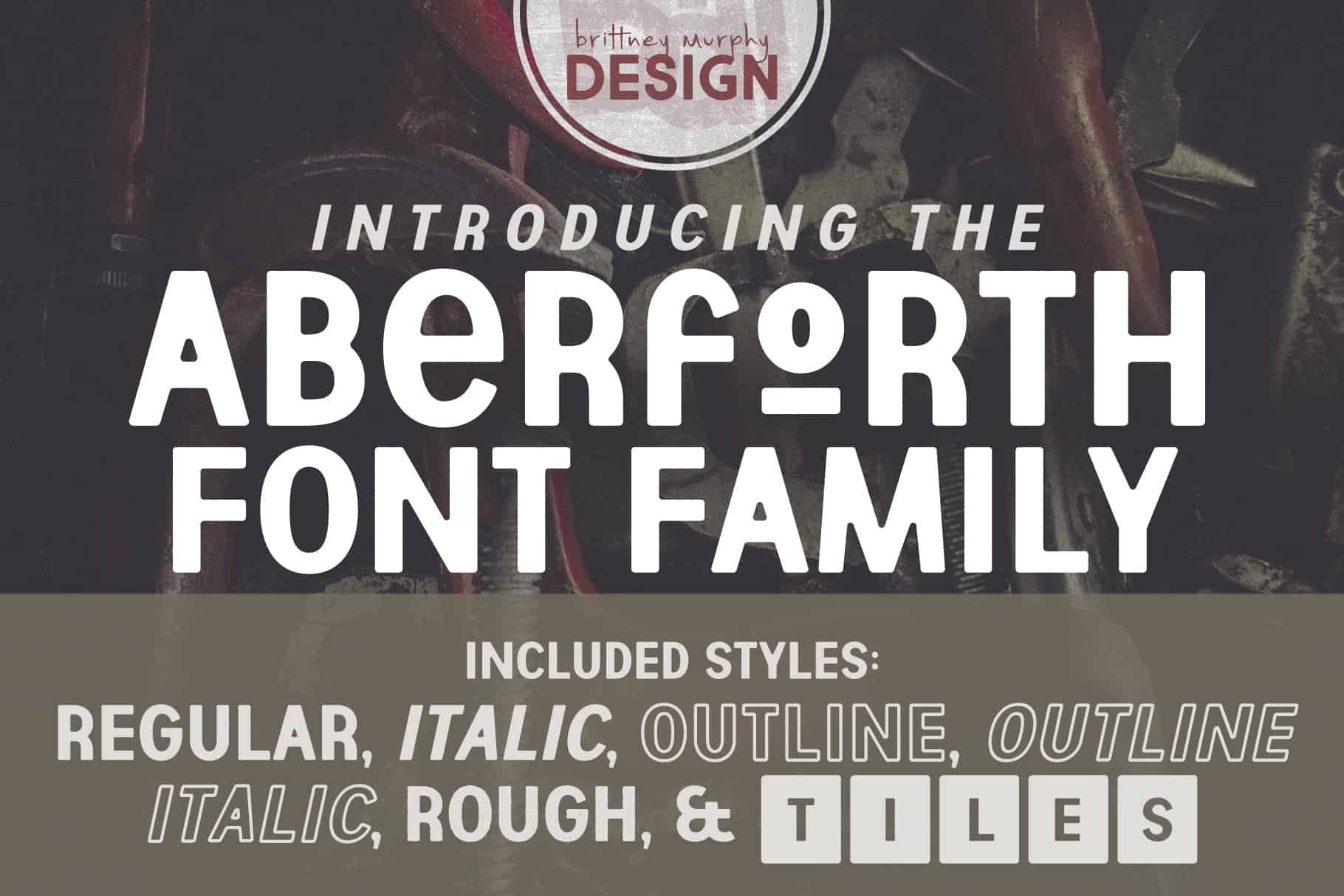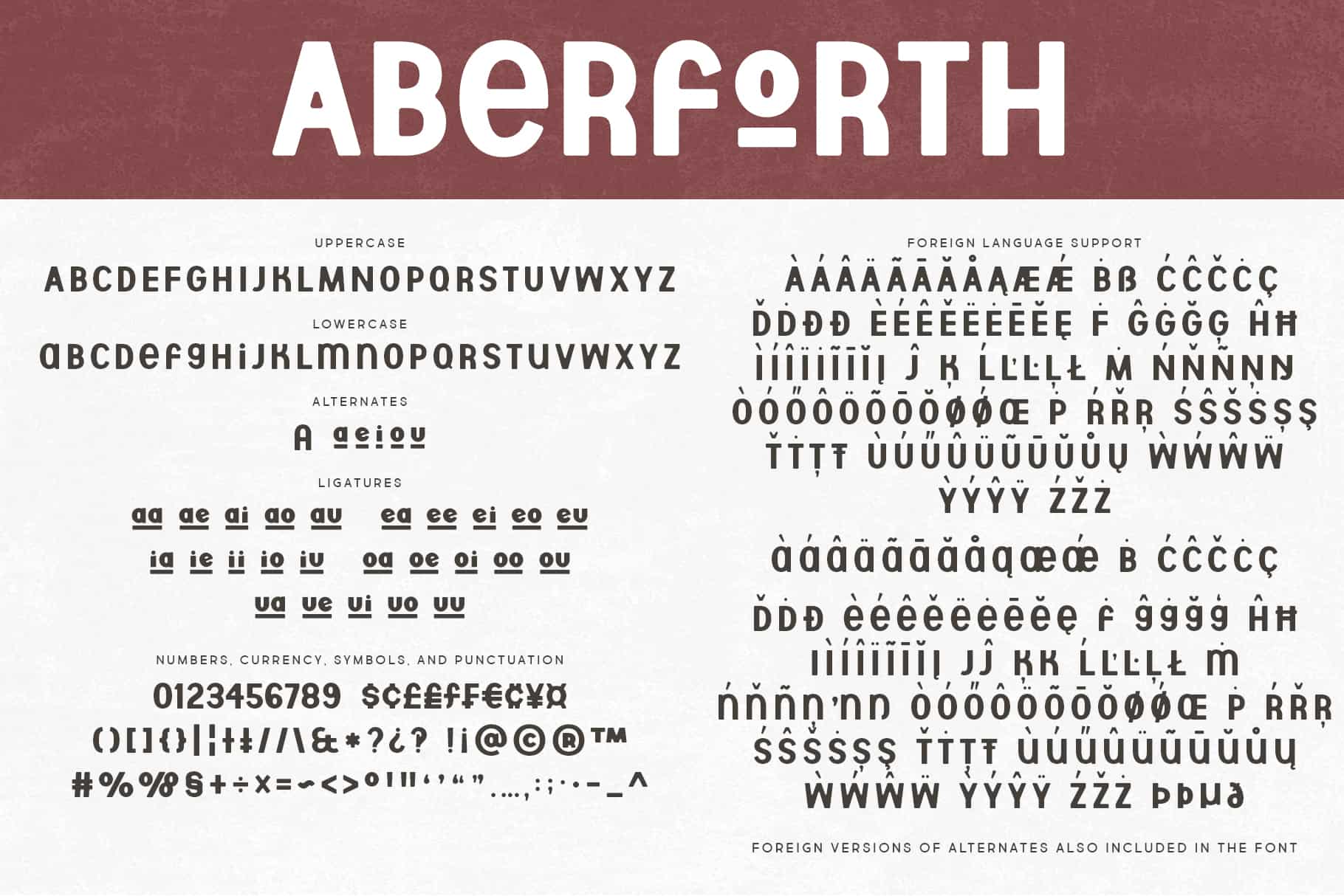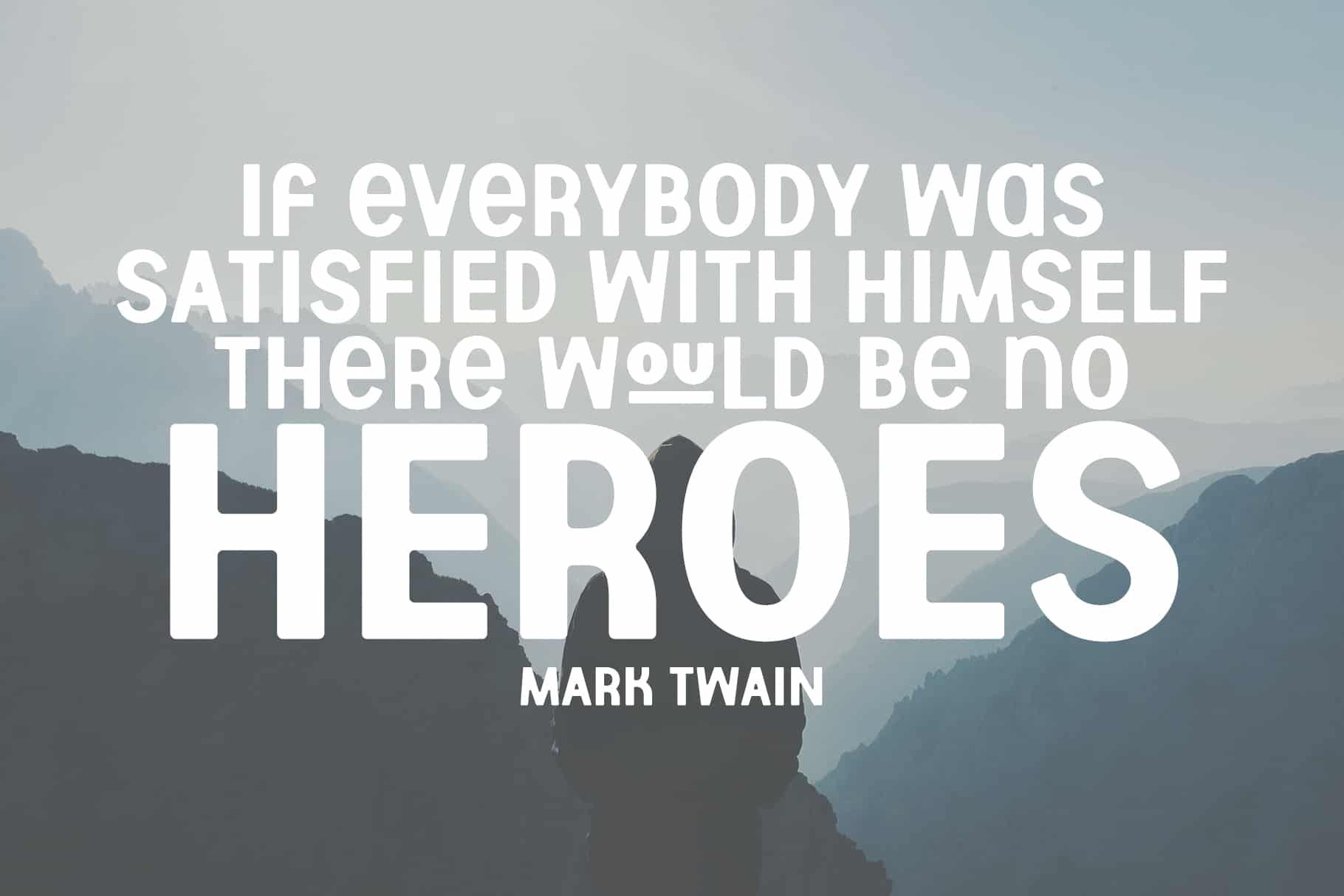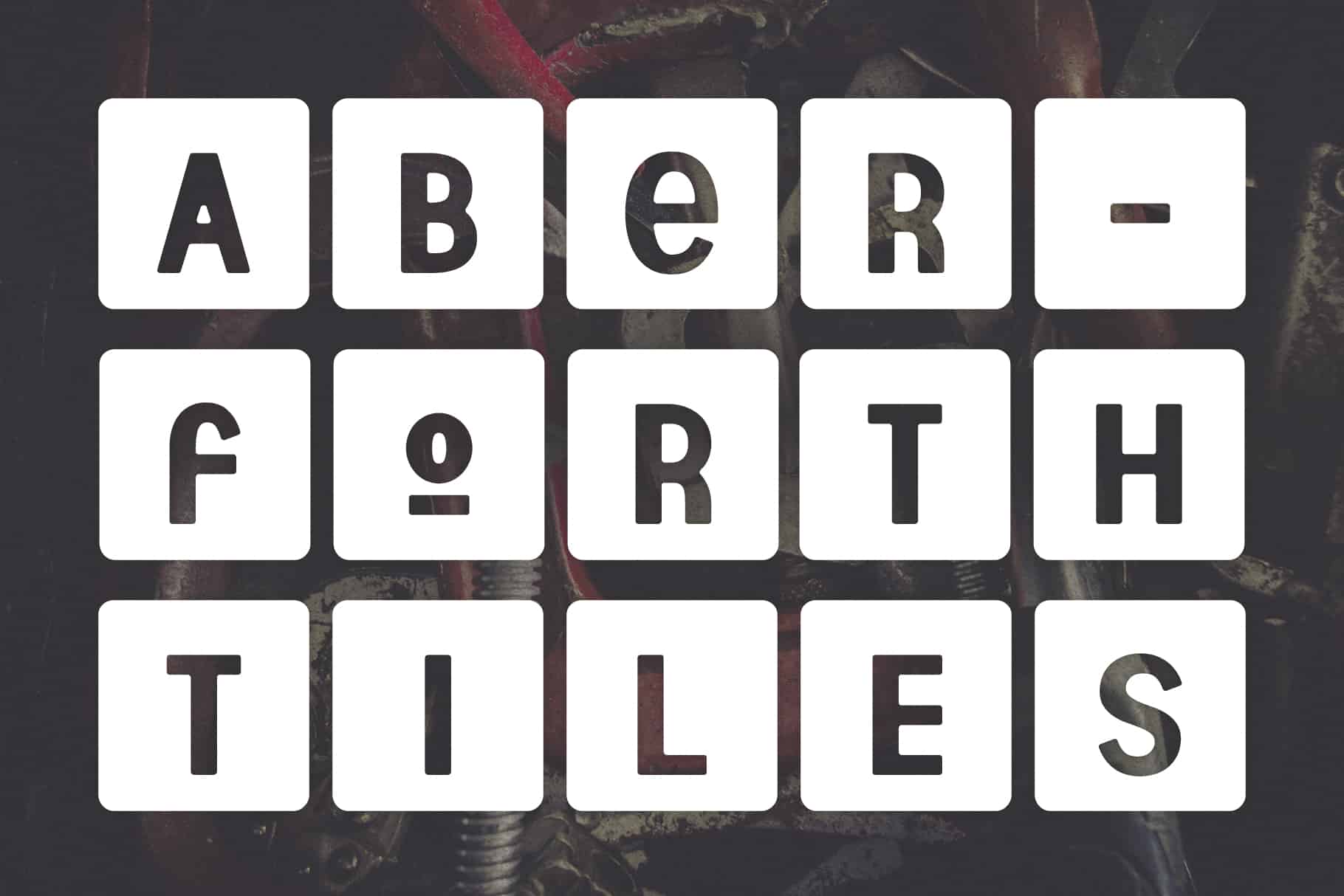
Aberforth
Aberforth Font Family
Aberforth Tiles
Aberforth Quote
Aberforth Letters
About the Aberforth Font
The Aberforth Font is a mixed-case sans-serif font font family created by Brittney Murphy Design in 2019. Aberforth includes the Regular, italic, outline, outline italic, rough, and the tiles versions. The Aberforth font contains more than 400 characters including alternates, ligatures, and supports more latin based languages. With its many different styles Aberforth versatile for your logo, by-line, and accent font for your graphic design project. Licensing for the whole family comes at a reduced rate.